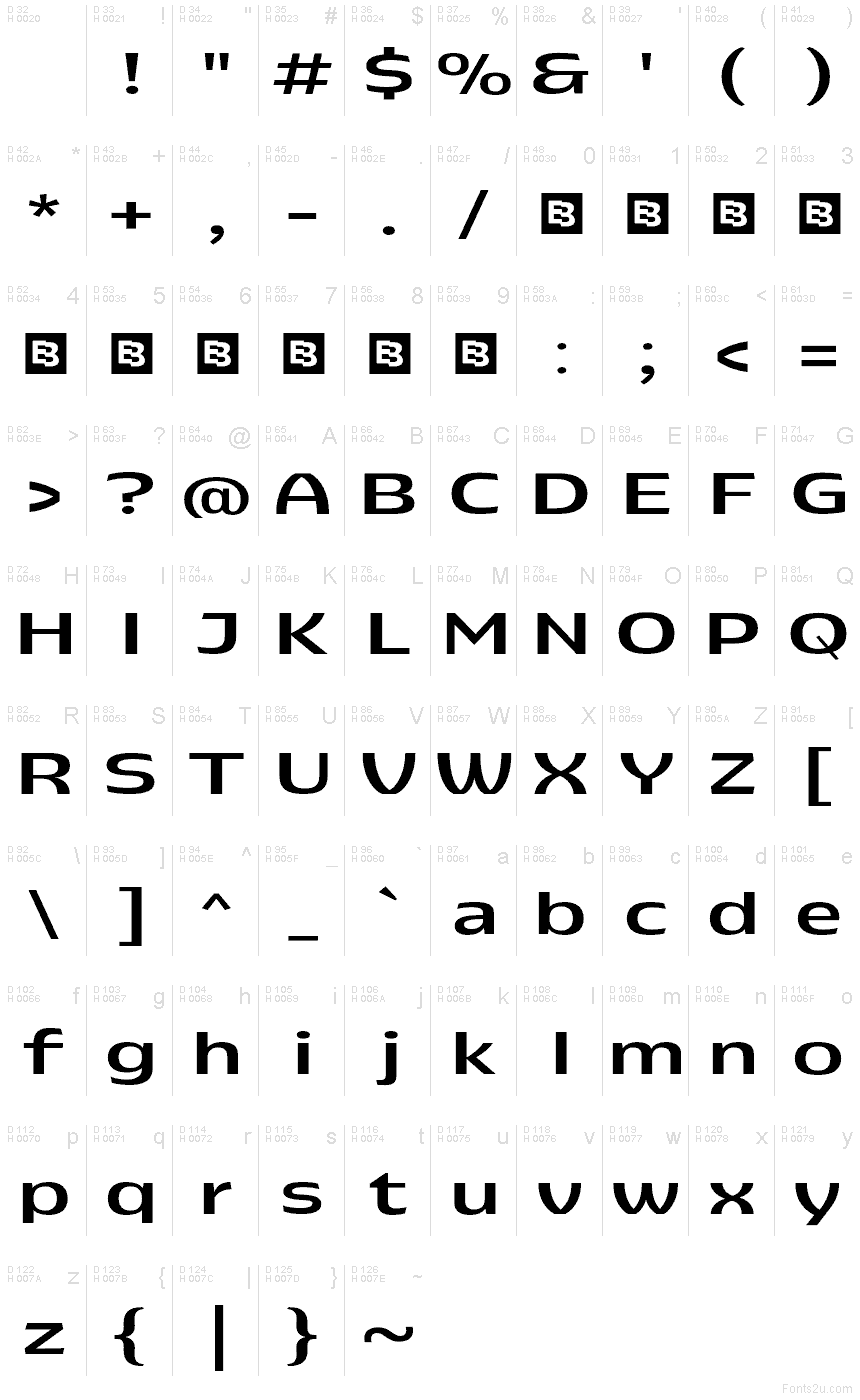
Pocas Trial Medium Expanded
Pocas Medium Expanded font by Eko Bimantara is a free expanded sans serif typeface. Part of the Pocas family, it spreads confidently across the line with broad proportions, steady strokes, and soft, rounded edges that keep it friendly rather than shouty. The letters lock together with even spacing, so short words feel substantial and readable, perfect when you need presence without cramped tracking or fussy tweaking.
Using Pocas Medium Expanded, headlines, hero banners, sports branding, packaging, event posters, and bold UI tabs all gain a calm, weighty voice. The wide rhythm carries impact at a glance while staying smooth on screen. This free font also works beautifully for logos and nameplates. Pair it with the Pocas family in a regular width for supporting text, or run it oversized with generous line spacing for a clean, modern look.